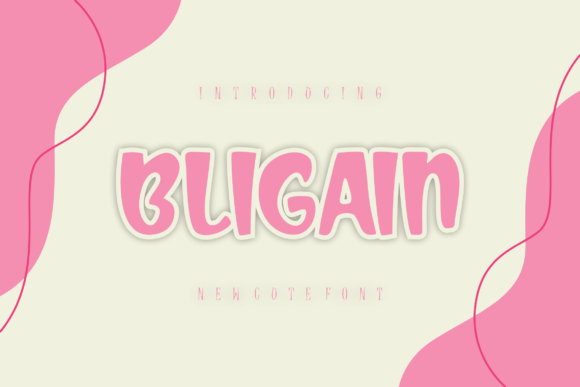
The Bligain Font: A Modern Display Font for Creative Projects
Have you ever been in the middle of a design project, and suddenly, you’re stuck on finding the perfect font? I recall a recent experience where I was working on a client’s branding project, and I just couldn’t find a font that felt both bold and elegant. That’s when I stumbled upon the Bligain font, and it instantly became a game-changer for my design. In this article, we’ll dive into the world of Bligain, exploring its features, uses, and everything in between.
What is Bligain Font?
Bligain is a unique display font that feels beautiful, bold, and modern. This font is perfectly suited for a wide variety of projects, such as signature, stationery, logo, wedding, typography quotes, magazine or book cover, website header, clothing, branding, packaging design, and more. Its versatility and stylish appearance make it an excellent choice for designers, crafters, and creative hobbyists.
- 💥 Unique and eye-catching design: Bligain’s modern and bold style makes it perfect for grabbing attention.
- ✅ Highly versatile: Suitable for various projects, from logos to website headers.
- 🎨 Great for creative freedom: The font’s stylistic alternates and OpenType features offer plenty of room for experimentation.
- ⚠️ Limited use for body text: Due to its bold and display nature, Bligain might not be the best choice for lengthy paragraphs.
- 😐 May require additional design work: To get the most out of Bligain, you might need to invest some time in adjusting the font to your project’s specific needs.
The Story Behind Bligain Font
The Bligain font was designed with the intention of creating a modern and bold display font that would cater to the needs of creative professionals. Inspired by the latest design trends and a passion for typography, the designer aimed to craft a font that would be both versatile and visually striking.
Q: What type of projects is Bligain font best suited for?
A: Bligain font is perfect for a wide range of projects, including signature, stationery, logo, wedding, typography quotes, magazine or book cover, website header, clothing, branding, packaging design, and more.
Q: Can I use Bligain font for body text?
A: While Bligain is a beautiful font, it’s primarily designed for display purposes. It might not be the best choice for lengthy paragraphs, as it can be overwhelming to read.
Q: Does Bligain font support OpenType features?
A: Yes, Bligain font supports OpenType features, including stylistic alternates and glyphs, which can add an extra layer of creativity to your design.